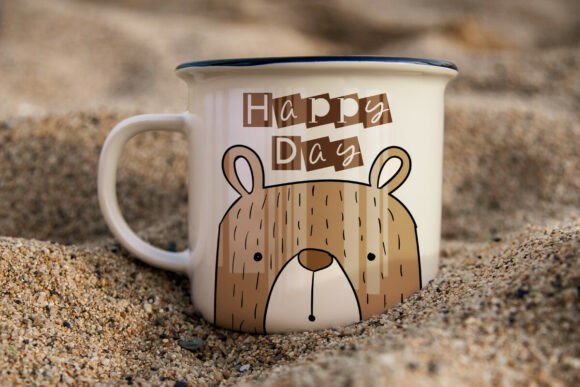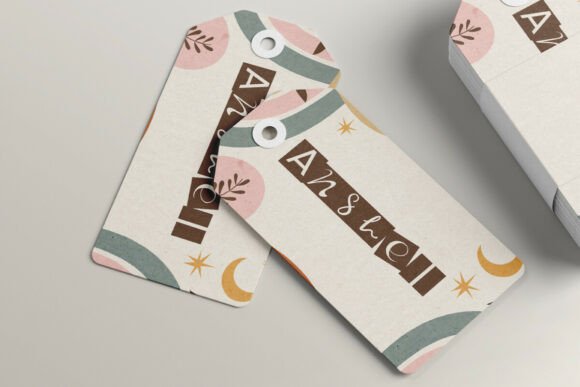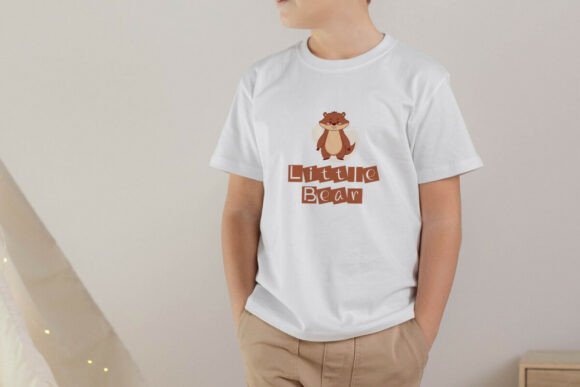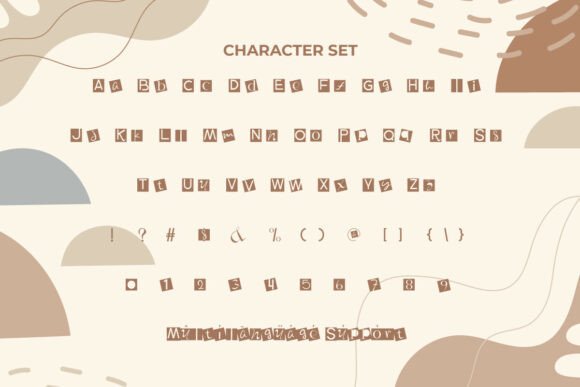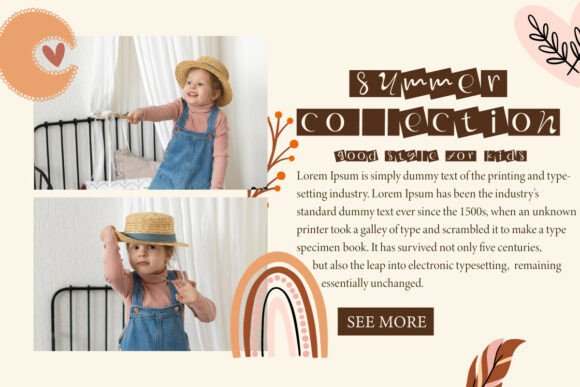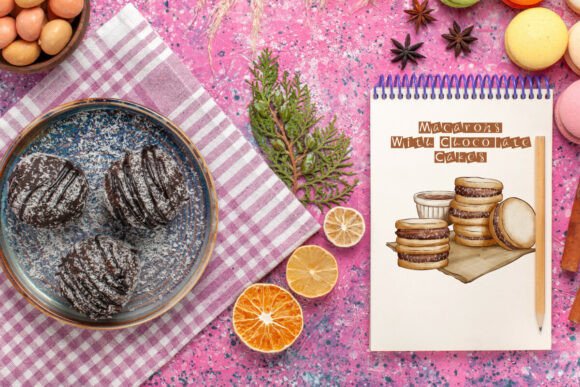
Introduction to Randombox Font Font
Fonts play a crucial role in design, and the Randombox Font font is a typeface that brings both character and versatility to any project. Whether you’re working on a branding project, a website, or a print design, the Randombox Font font offers a unique style that can elevate your work.
Random Box Font is a delightful decorative display typeface featuring a playful assortment of square-shaped letterforms.
Each character is uniquely styled with varying box outlines and whimsical shapes, giving the font a standout, handcrafted appearance Its charming randomness adds visual interest and originality, making it a perfect choice for eye-catching designs.
Key Features of Randombox Font Font
Why Choose Randombox Font Font?
The Randombox Font font is more than just a typeface – it’s a design tool that helps you communicate your message with style and clarity. Its unique character set and versatile design make it suitable for a wide range of applications, from elegant invitations to bold headlines.
With its carefully crafted letterforms and balanced proportions, the Randombox Font font ensures readability and visual appeal across all mediums.
What makes Randombox Font font special?
The Randombox Font font stands out with its unique design, exceptional readability, and versatility across various design applications.